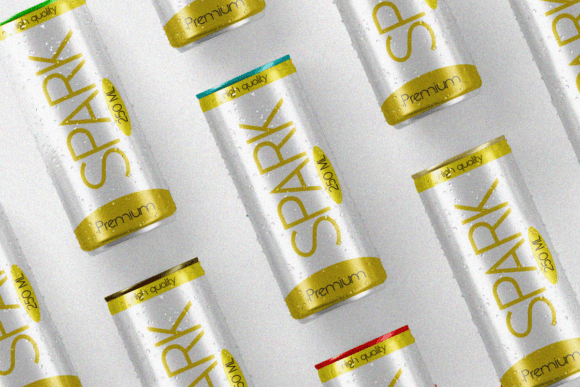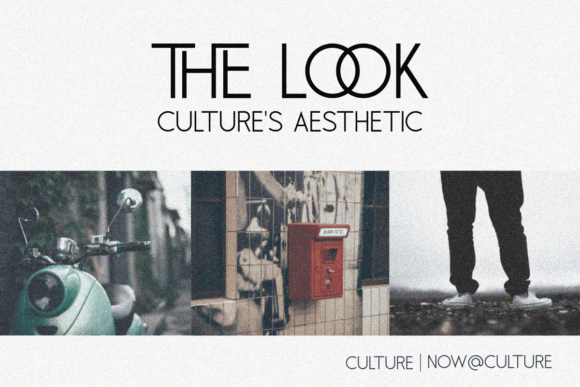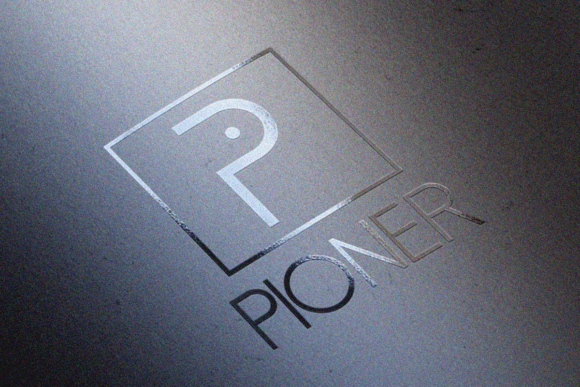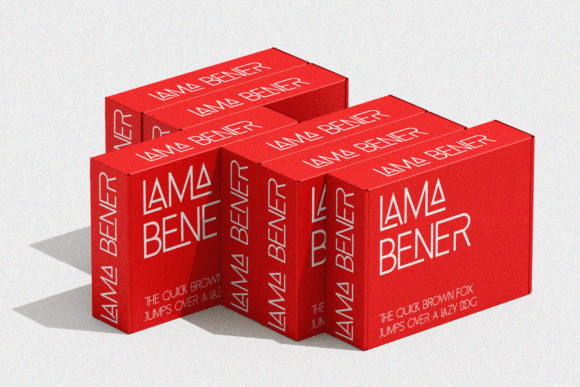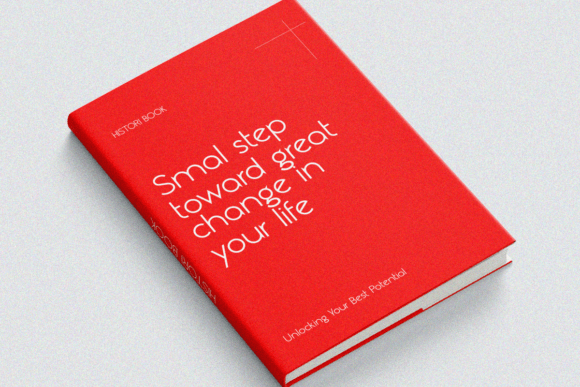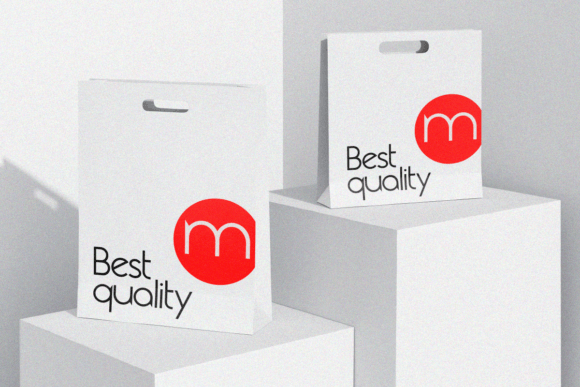
Discover the Timeless Elegance of the Champilon Font
Enter the Champilon Font, a masterfully crafted sans-serif font that embodies the essence of modern design. With its meticulously crafted smooth ligatures and alternate characters, Champilon Font adds a touch of refinement to any design. Whether you’re working on a branding initiative or print materials, this font is sure to leave a lasting impression.
Key Features of Champilon Font
- Font Type: Champilon is a sans-serif font, ideal for modern and clean designs.
- Unique Characteristics: Champilon features a unique blend of modern and minimalist elements, making it perfect for creating visually appealing and professional designs.
- Font Style: Champilon comes in both regular and bold font styles, offering versatility and flexibility in design applications.
- ✨ Elegant and modern design: Champilon Font has a sleek, sophisticated look that would be perfect for fashion, luxury, or tech-related projects.
- ⚠️ Limited expressiveness: While Champilon Font is elegant, it may not convey the same level of emotion or personality as other fonts, which could be a limitation in certain projects.
- ⚠️ Not ideal for body text: The font’s design may not be the most readable in large blocks of text, which could be a concern for projects that require extensive body copy.
Overall, I’d recommend Champilon Font for projects that require a touch of sophistication and elegance. However, it may not be the best choice for every project, and designers should carefully consider its limitations before making a decision.
Champilon font is ideal for use in titles, headings, and short paragraphs. Use it to add a touch of elegance and sophistication to your designs.
Champilon font is commonly used in:
– Fashion and beauty branding.
– Luxury and high-end product design.
– Editorial and publishing design.
– Wedding and event invitations.